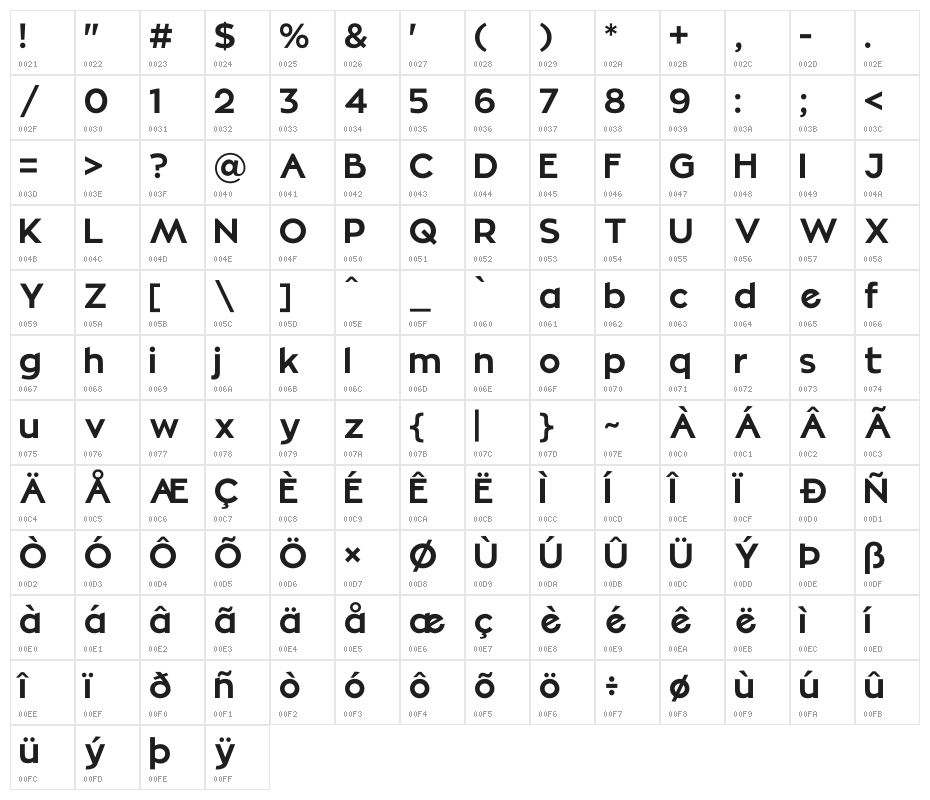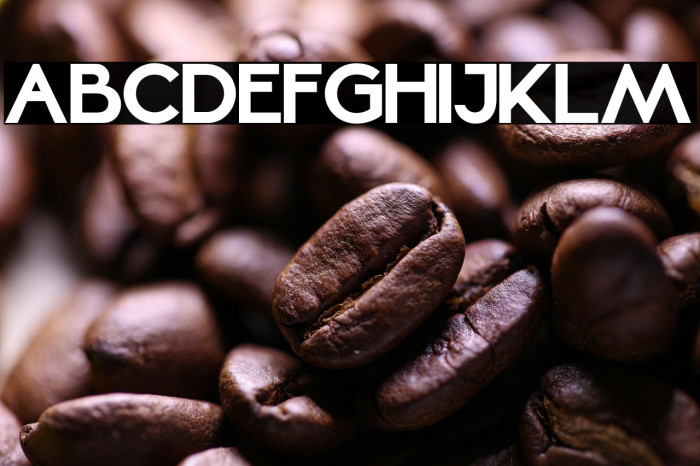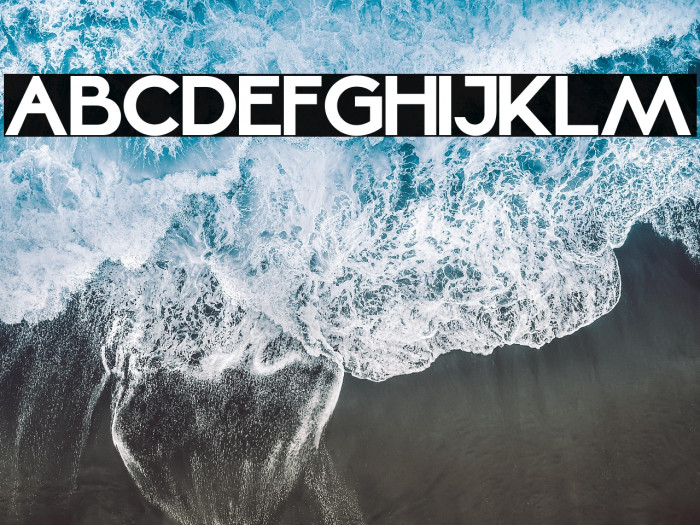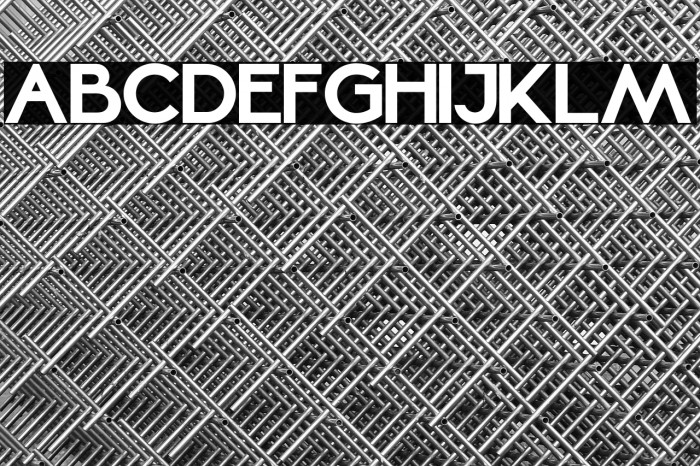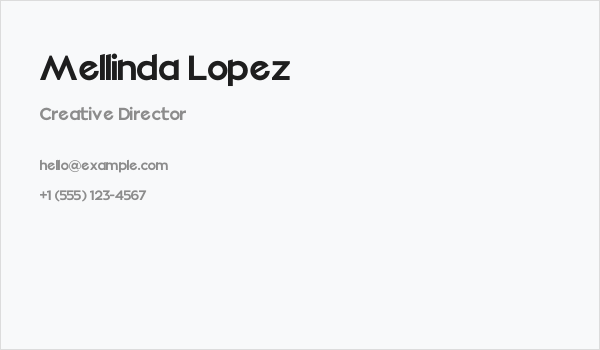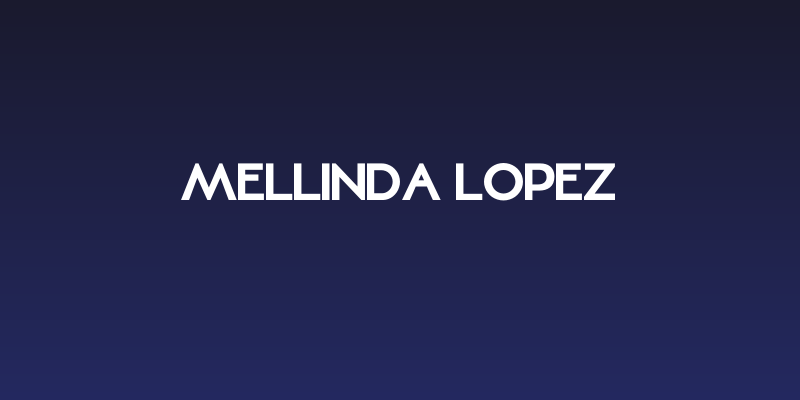
Mellinda Lopez Font
Mellinda Lopez Description
This font exhibits a modern and clean sans-serif style, characterized by its bold and uniform stroke weight. The uppercase letters are geometric and balanced, with a slight angularity that adds a contemporary edge. The lowercase letters maintain a consistent roundness, providing a harmonious flow across text. Numbers are well-proportioned and align seamlessly with the overall aesthetic. Special characters are clearly defined, ensuring readability and versatility in various contexts. The font's design is suitable for both digital and print media, offering a professional yet approachable appearance.
Use CaseHeadlines, Logos, Branding
Proposed ProjectsIdeal for branding, advertising, web design, and editorial layouts.